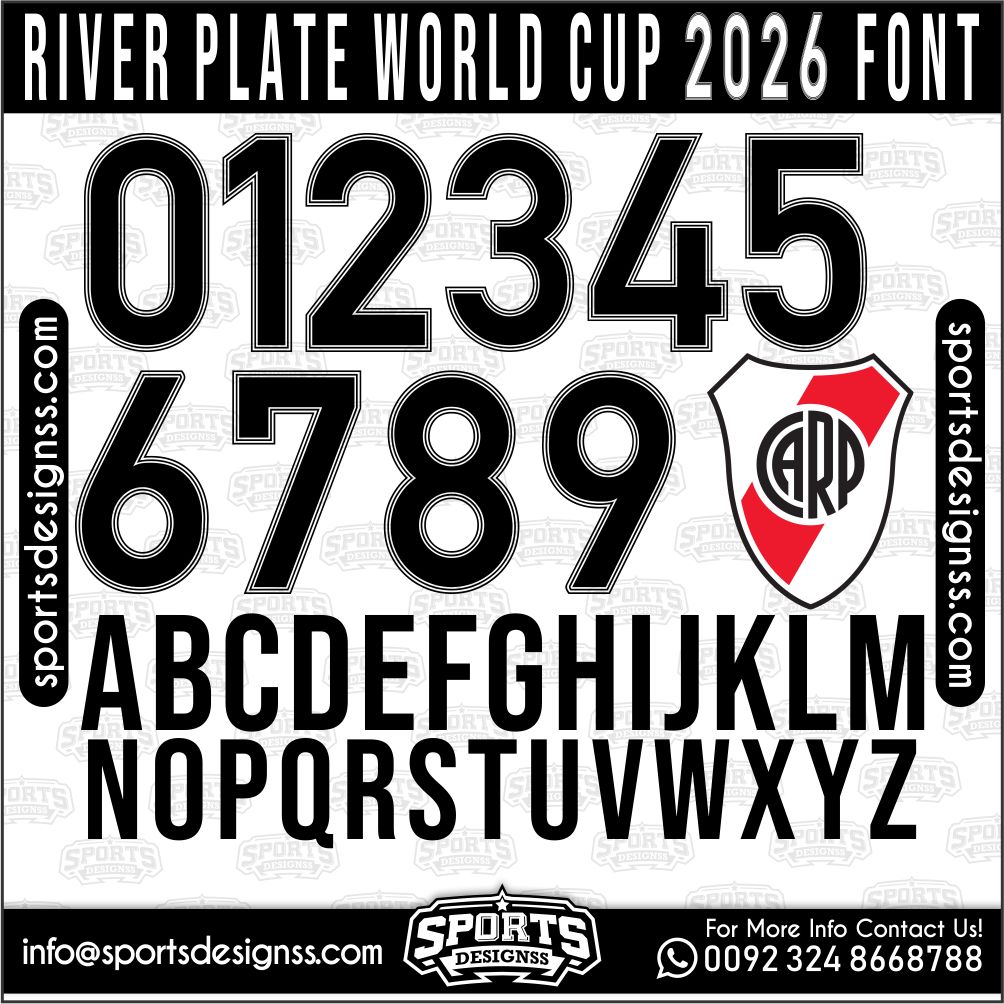
Download the RIVER PLATE WORLD CUP 2026 Font by Sports Designss – a premium football jersey font inspired by modern kits.
Recreate authentic football jersey designs with the RIVER PLATE WORLD CUP 2026, built for realistic, match-ready sports visuals.
Upgrade your designs with the RIVER PLATE WORLD CUP 2026, a premium football jersey font inspired by modern professional sports aesthetics.